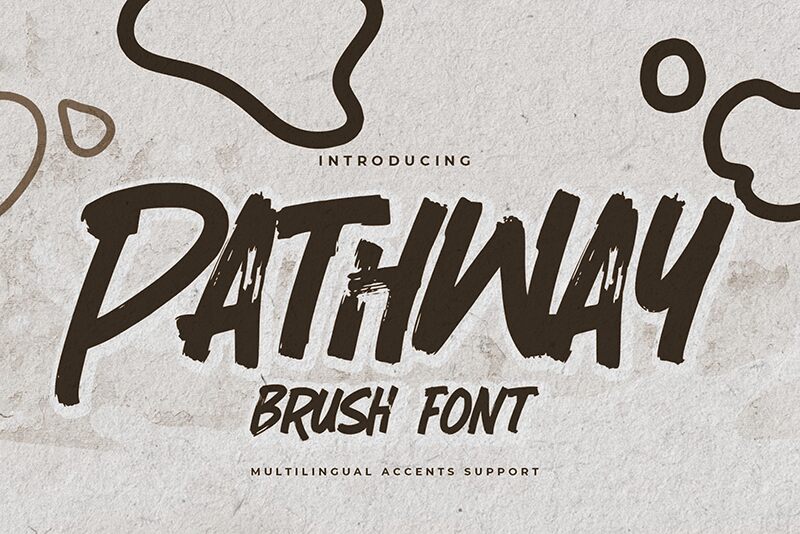
Experience the dynamic flair of Pathway, a semi-bold brush font crafted by the innovative Gassstype. With its modern style and dramatic movement, Pathway captures the essence of spontaneity with each casually swift stroke. This typeface boasts a textured appearance that exudes authenticity and natural charm, perfect for designers looking to infuse their work with strong, cool undertones.
Pathway is more than just a font; it's an enabler of creative expression. Its robust character makes it an ideal choice for a myriad of applications-from eye-catching labels and impactful posters to personalized project designs. Imagine your branding, packaging, greeting cards, and websites coming to life with this versatile and engaging script.
Enhance your designs by utilizing Pathway’s OpenType features such as ligatures to add that extra touch of finesse. Embrace the unique characteristics that make Pathway not just a font but a pivotal tool for any creative endeavor where personality and distinction are paramount.